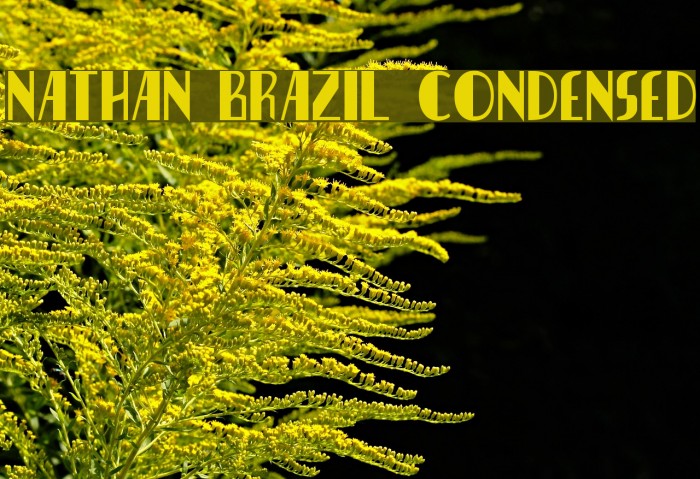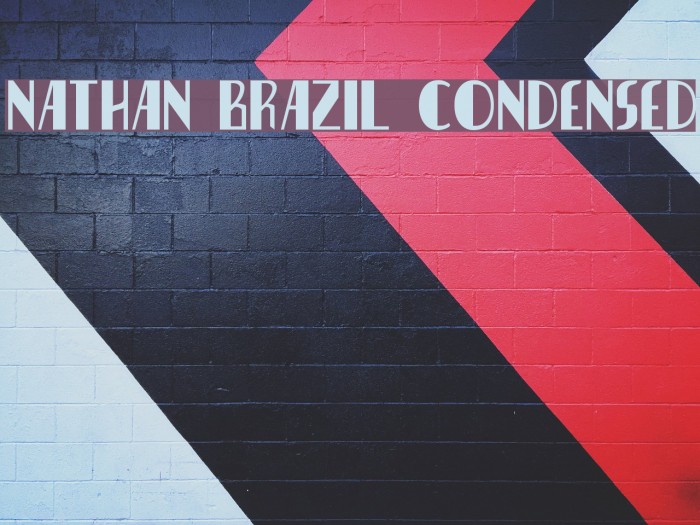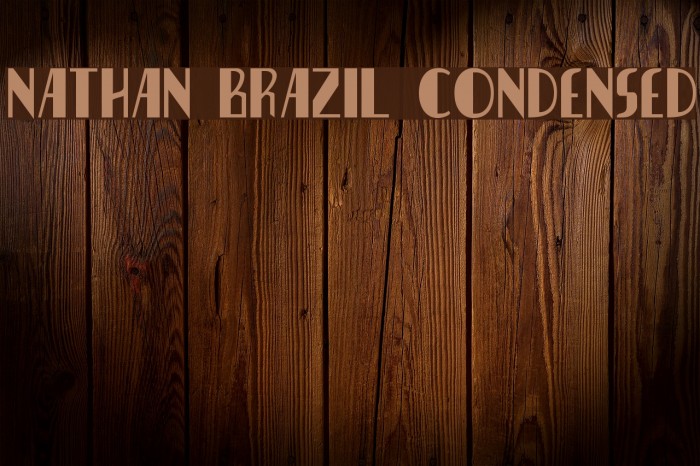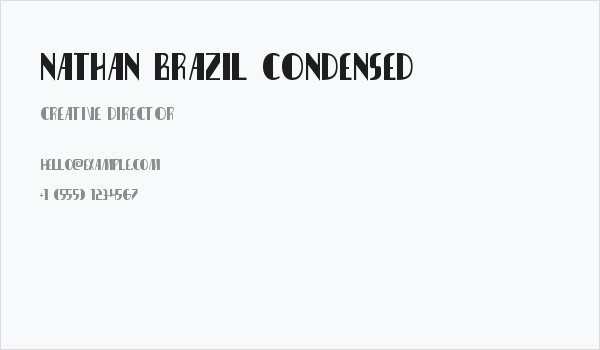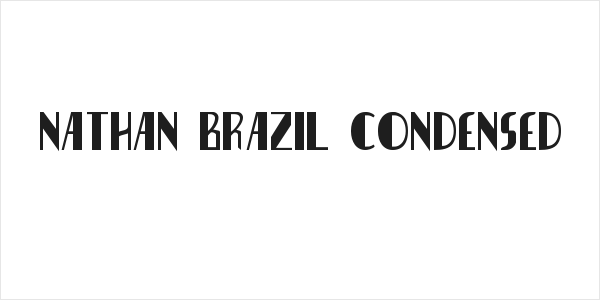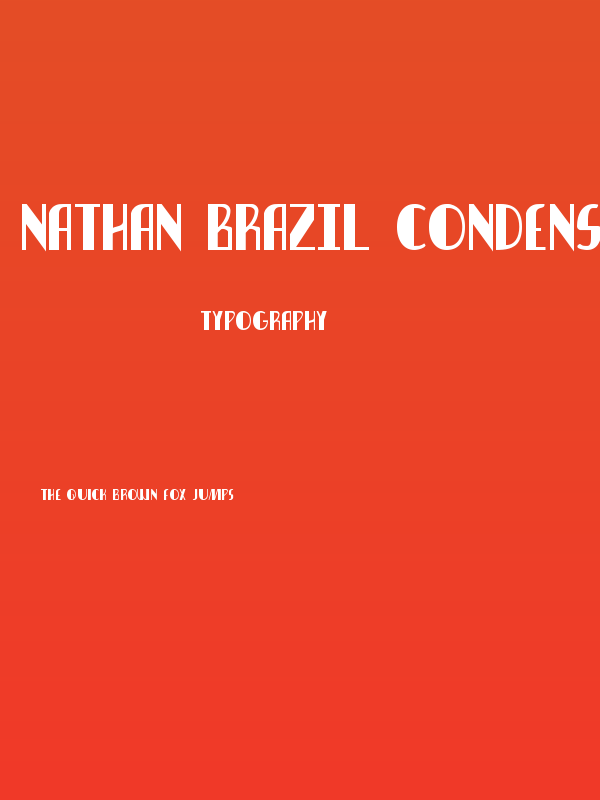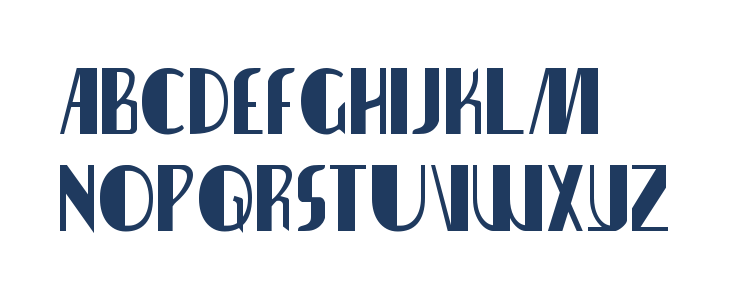
Nathan Brazil Condensed Font
Nathan Brazil Condensed Description
This font features a bold and condensed style with a modern and geometric flair. The characters are uniquely designed with sharp angles and clean lines, giving it a distinct and eye-catching appearance. The uppercase letters are particularly striking, with a strong presence that commands attention. The lowercase letters maintain the same geometric style, ensuring consistency throughout. Numbers and special characters are equally bold, making them stand out in any design. This font is ideal for projects that require a strong visual impact.
| Proposed Projects | Ideal for branding, posters, headlines, and any design requiring a strong visual impact. |